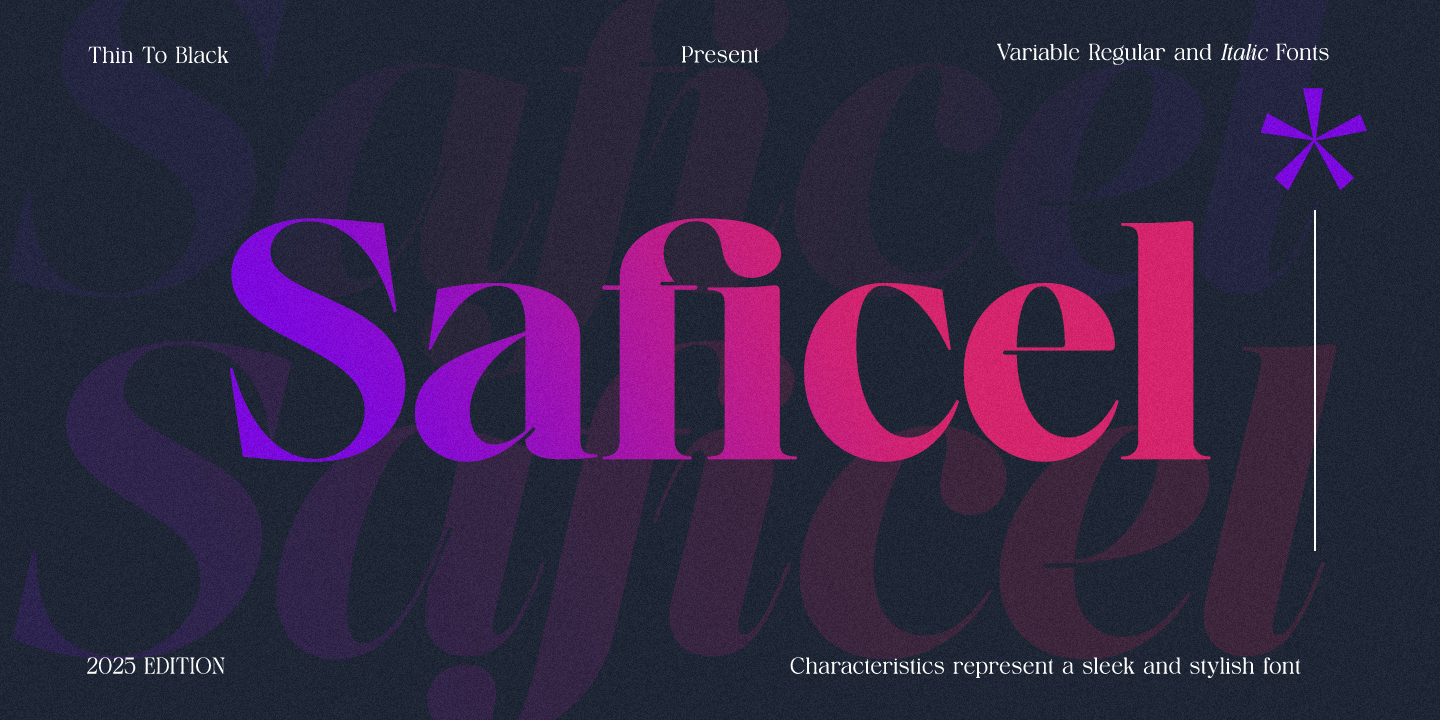
Saficel Font is perfect for clean modern branding, sophisticated web interfaces, contemporary corporate communications, minimalist packaging design, professional presentation materials, sleek product launches, refined digital applications, and elegant business identities. This sophisticated typeface excels in applications requiring modern clarity and professional refinement that captures the essence of contemporary design excellence through crisp visual character and refined sophistication.
What makes Saficel Font exciting is its perfect balance of modern sophistication and professional clarity that creates instant credibility through precisely crafted letterforms. The font features contemporary character construction with refined proportions and sophisticated styling that delivers exceptional readability while maintaining distinctive elegance perfect for organizations seeking to establish modern market positioning and professional design excellence.
The Saficel Font family includes comprehensive weight options from light to bold, plus refined italic variations, offering designers complete tools for creating sophisticated modern typography systems. The family provides consistent contemporary aesthetic with strategic weight progression for effective professional hierarchy while maintaining the refined character that defines modern business excellence and sophisticated brand communications.
Saficel Font Free Download represents an exceptional choice for organizations seeking typography that embodies contemporary sophistication and modern professional standards. Whether you're developing modern corporate identities, digital product interfaces, contemporary marketing campaigns, or professional business communications, this font provides the refined character needed for establishing modern credibility and sophisticated brand positioning.
The precisely engineered letterforms of Saficel Font ensure optimal performance across all modern applications while maximizing contemporary appeal and professional sophistication, making it ideal for digital interfaces, corporate presentations, and modern brand communications. This versatile typeface combines contemporary design excellence with technical precision for outstanding performance in professional environments requiring authentic modern character and sophisticated business presence.